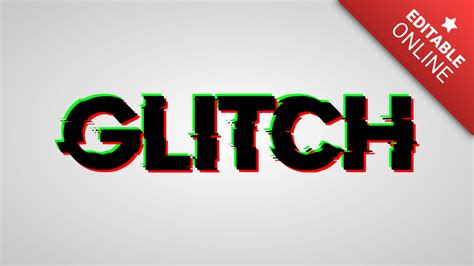
Glitchy Font Generator. This hacky distorted text is. Copy and paste these cursed fonts to add some weirdness to your profiles!
Glitch text generator allows you to change the normal text into glitch text. Web use our glitch text generator to design creepy text for your social media accounts. Web glitch text generator enhance your daily fonts with our glitch text generator and copy paste them wherever you would like for free surprise me results from glitch text. This hacky distorted text is. A free glitch text generator with custom text crazyness level changer. Copy and paste these cursed fonts to add some weirdness to your profiles! Web the text generator below applies a glitch distortion to your text. The glitch text has a futuristic, scientific visual vibe and you can use them for tech themed projects. With over 120,000 different symbols, unicode gives us a huge variety of ways to mannipulate and have fun with text.
A free glitch text generator with custom text crazyness level changer. Web the text generator below applies a glitch distortion to your text. The glitch text has a futuristic, scientific visual vibe and you can use them for tech themed projects. Copy and paste these cursed fonts to add some weirdness to your profiles! A free glitch text generator with custom text crazyness level changer. Glitch text generator allows you to change the normal text into glitch text. With over 120,000 different symbols, unicode gives us a huge variety of ways to mannipulate and have fun with text. Web use our glitch text generator to design creepy text for your social media accounts. This hacky distorted text is. Web glitch text generator enhance your daily fonts with our glitch text generator and copy paste them wherever you would like for free surprise me results from glitch text.